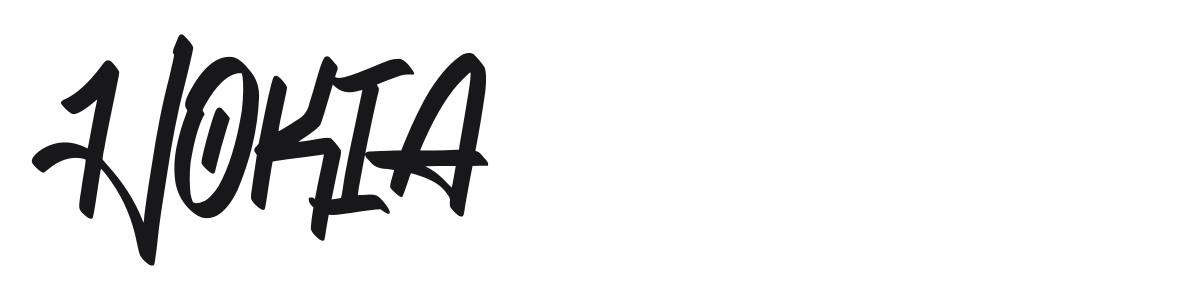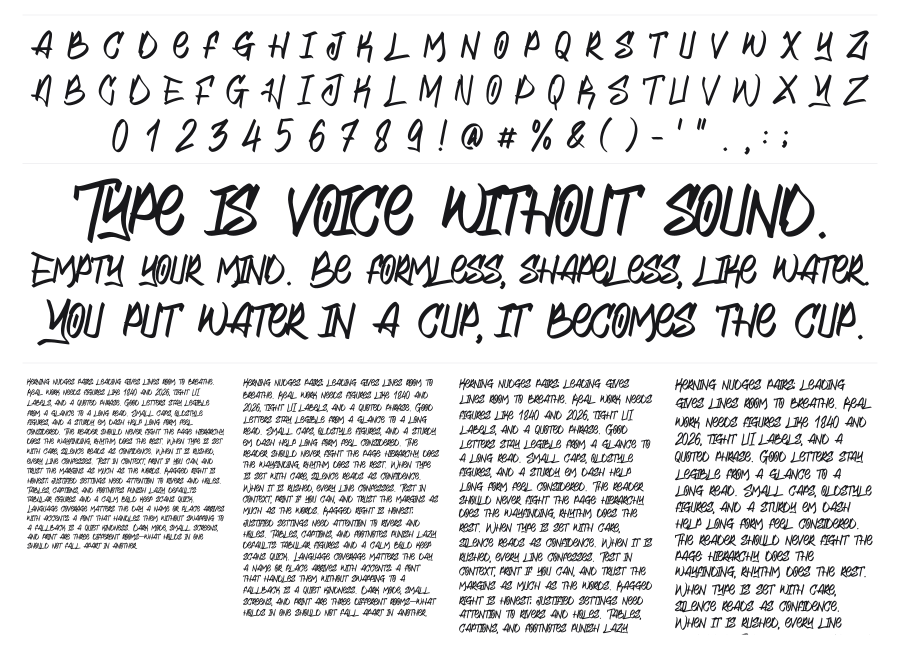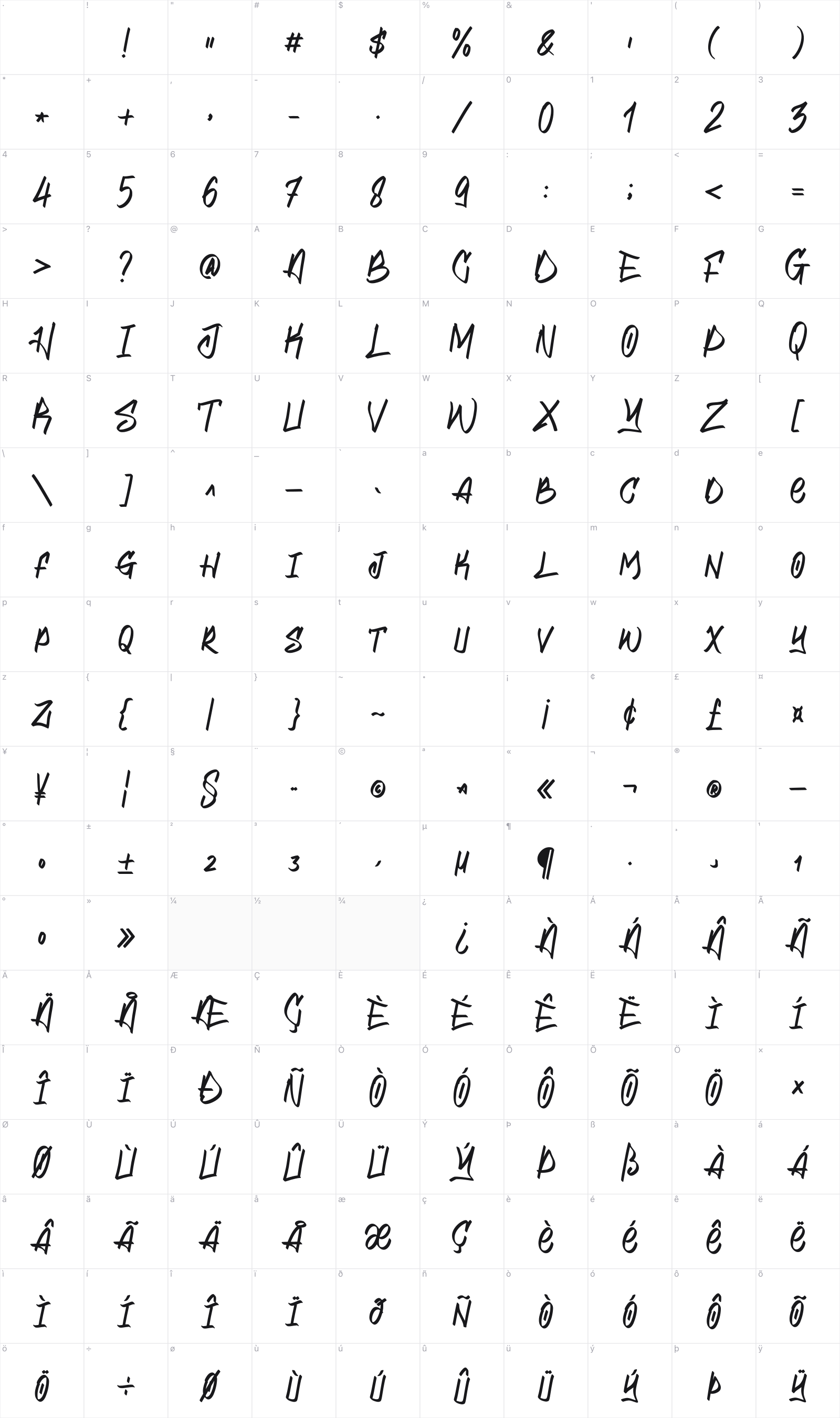
Hokia
Hokia is a bold graffiti brush script with heavy, slanted strokes and an unmistakably street-art personality. The rough, inky edges and aggressive lean give it authentic urban energy that works well for music, streetwear, and entertainment branding. It carries the spontaneous quality of hand-painted lettering without feeling sloppy.